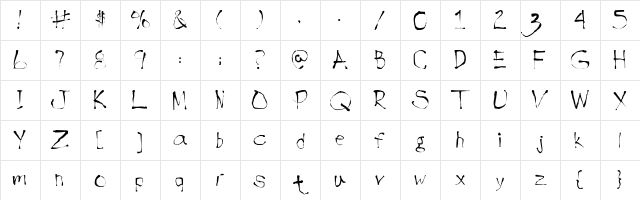
Handwrite-Inkbl Regular Font Preview
Handwrite-Inkbl Regular
Handwrite-Inkbl Regular Font Details
Design Context for Handwrite-Inkbl Typeface
Handwrite-Inkbl flows with the natural rhythm of handwritten lettering, making it ideal for designs that call for warmth and personal expression.